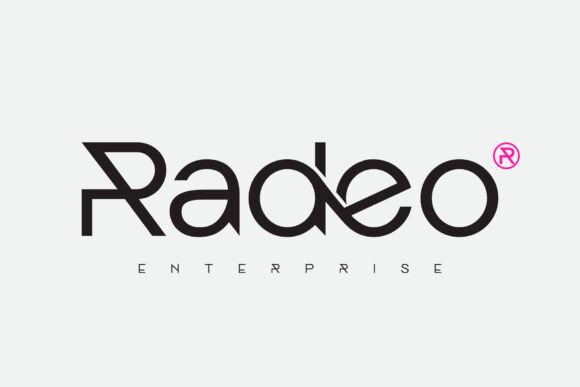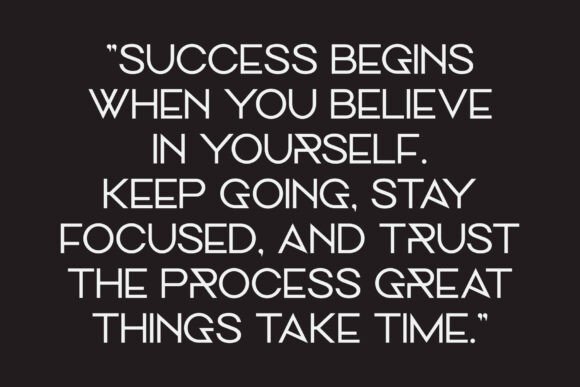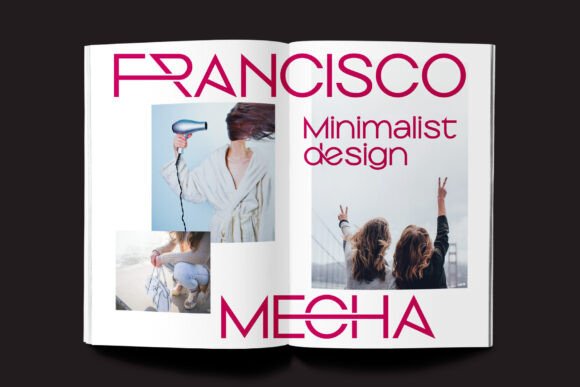
Grieck Font: A Modern Ligature Sans Serif for Logo Design & Branding
About the Grieck Font
Let us introduce you to Grieck Font, where timeless design meets modern craftsmanship. Introducing Grieck – a modern and striking font designed to enhance your brand’s visibility. With its clean lines and dynamic aesthetics, Grieck delivers a modern, eye-catching look that’s perfect for creating impactful and memorable logos.
Elevate your brand with Grieck, a font that exudes sophistication and boldness. Whether you’re designing logos, posters, or any graphic project, Grieck adds an elegant and contemporary touch. Make a statement with its sleek, modern design.
Grieck’s strong geometric forms make it ideal for headlines, short impactful statements, and branding applications where a bold, modern aesthetic is desired. It excels in logo design, posters, and short marketing materials. However, its condensed nature and strong visual weight make it unsuitable for body text or extended reading. Use it sparingly to maximize its impact.
Pairing Grieck effectively requires considering its inherent boldness. A clean, neutral sans-serif like Open Sans or Lato provides excellent contrast and readability for supporting text. For a more sophisticated feel, a classic serif like Garamond or Playfair Display can create a refined, high-end look. Avoid pairing it with other similarly bold or heavily stylized fonts.
Grieck projects a confident, sophisticated, and undeniably modern personality. Its clean lines and geometric structure lend themselves to brands emphasizing innovation, technology, or luxury. The font’s energy is best suited to projects that require a strong visual presence.
Grieck Font Usage Examples